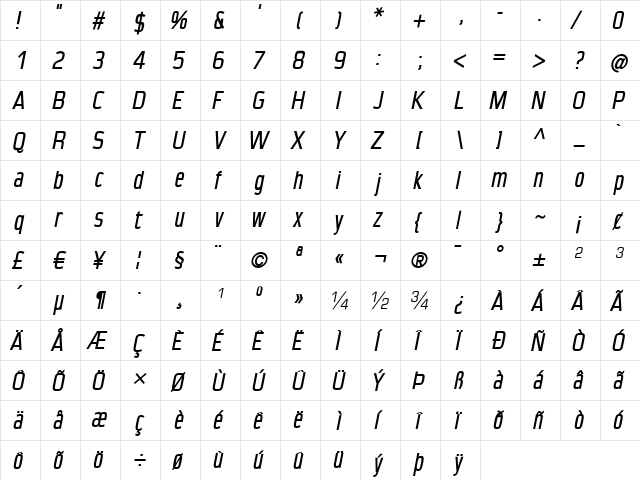
CondensansPaneurope-Medium Medium Italic Font Preview
Design Context for CondensansPaneurope-Medium Typeface
CondensansPaneurope-Medium offers clean, dependable letterforms without strong stylistic allegiance, making it a practical choice for designers who need flexibility. The slanted form adds forward momentum and visual energy. Its narrow stance lets it pack a punch even in space-constrained designs.
Pro Tip: Try CondensansPaneurope-Medium for annotation and caption copy alongside an upright companion — the contrast in angle creates a dynamic but ordered typographic system.